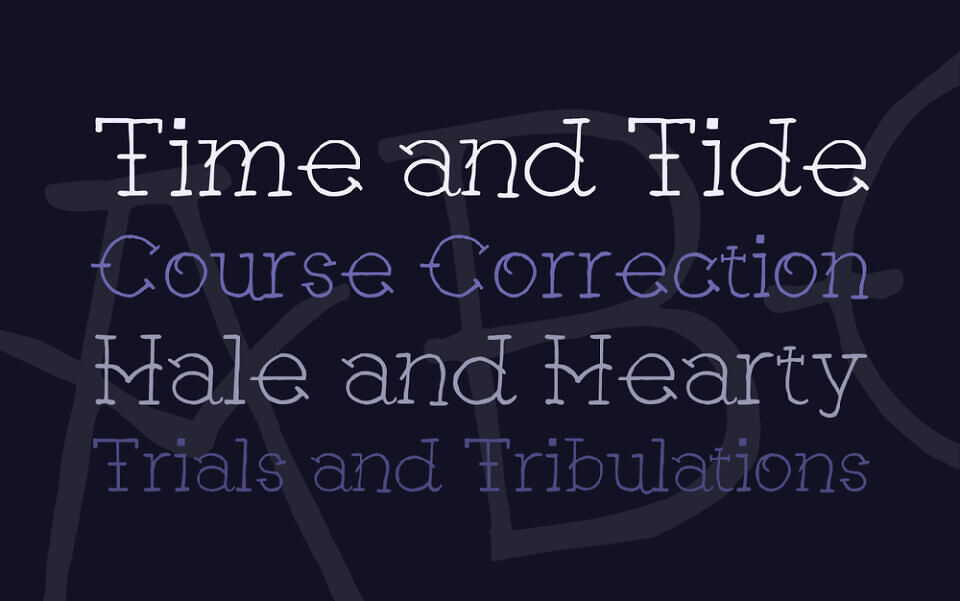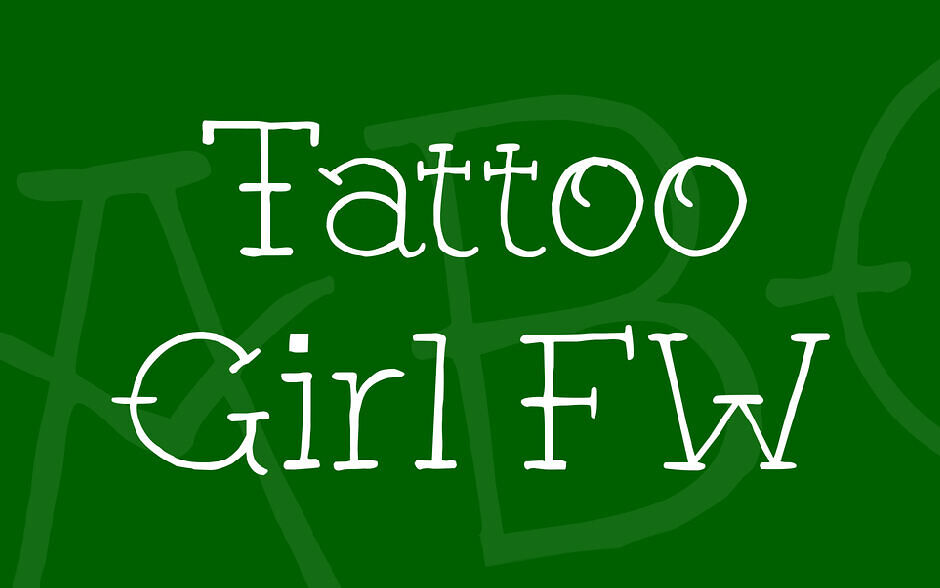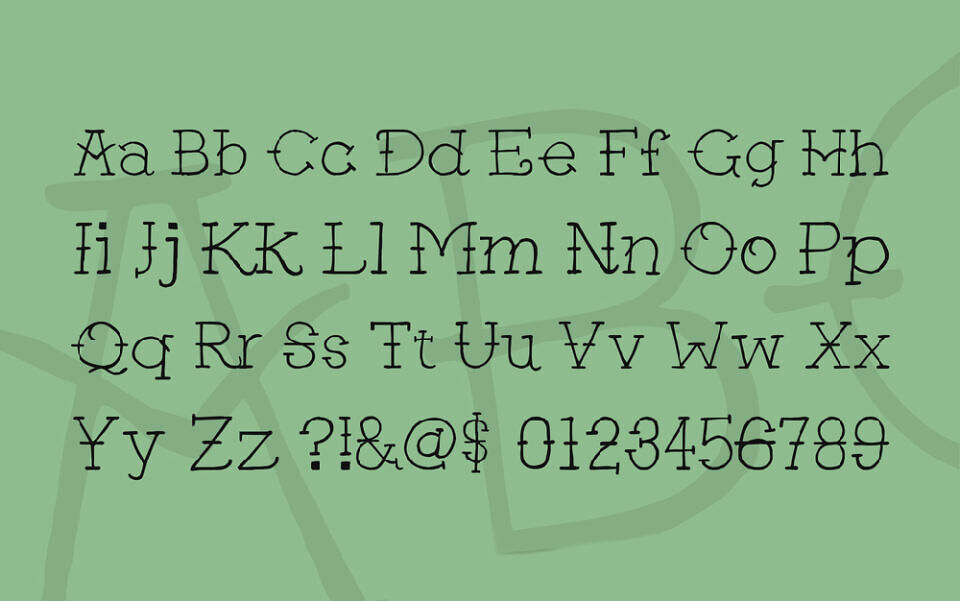
Tattoo Girl FW, crafted by Brain Eaters Font Co, is a playful, casual handwritten font with a cursive, feminine flair. Its fancy, flowing style evokes a personal, inked aesthetic, ideal for tattoos, quotes, or cute and creative designs.